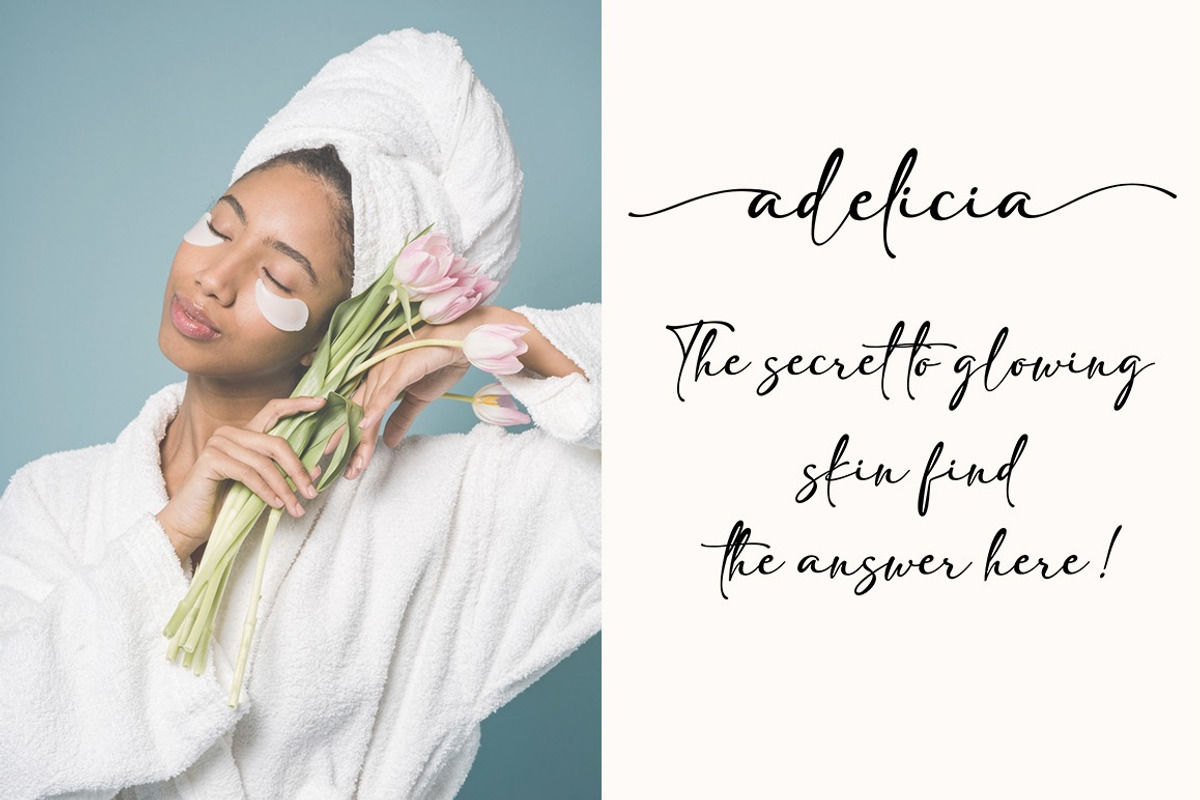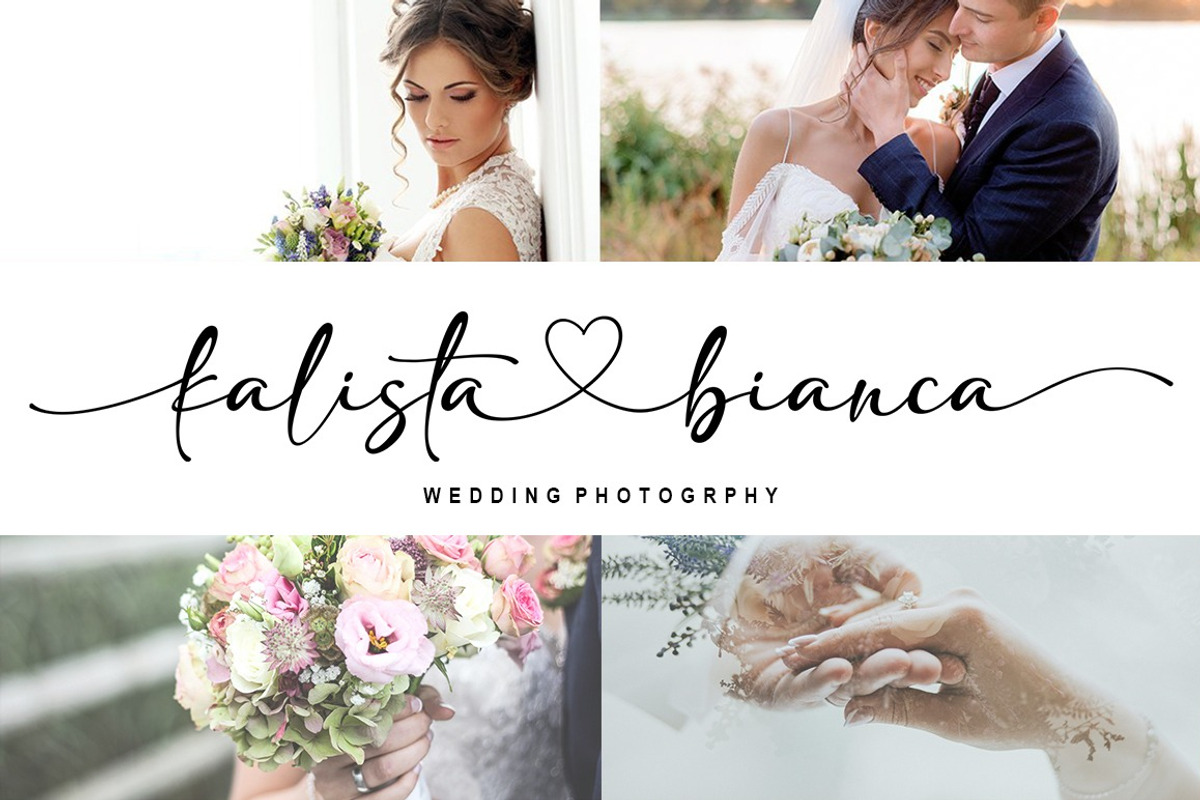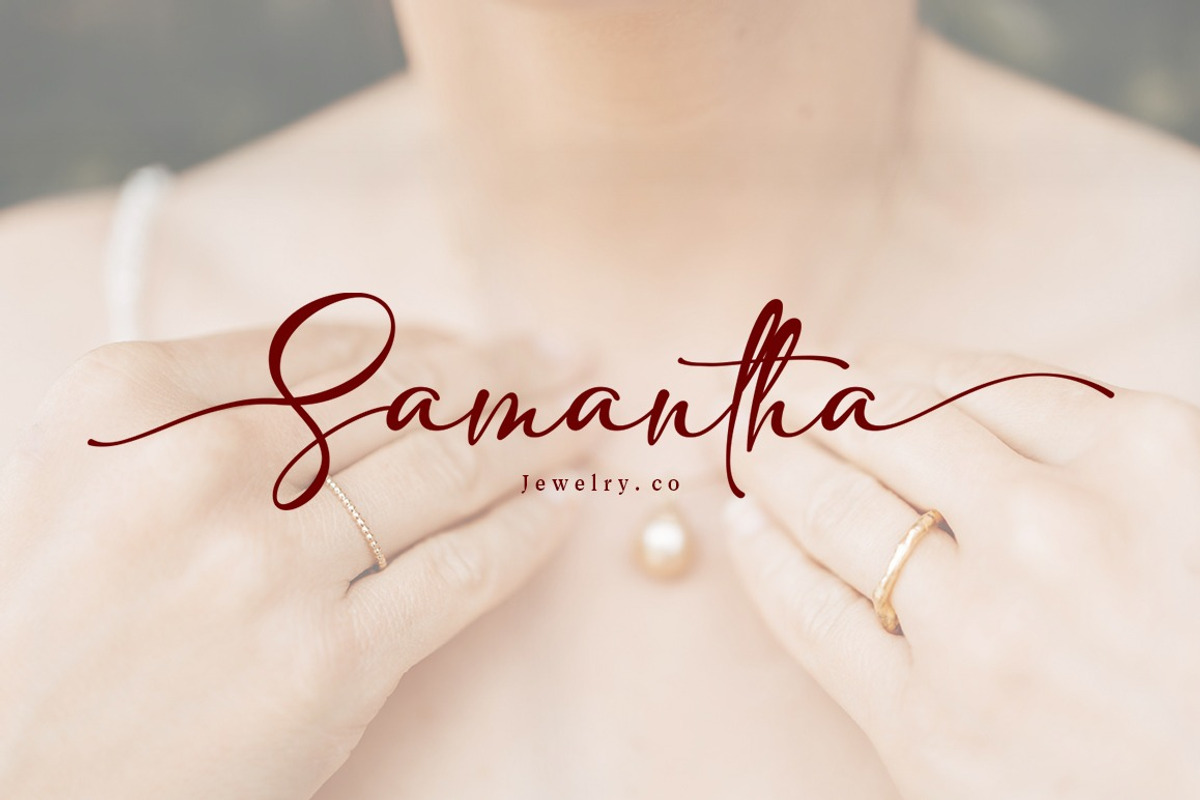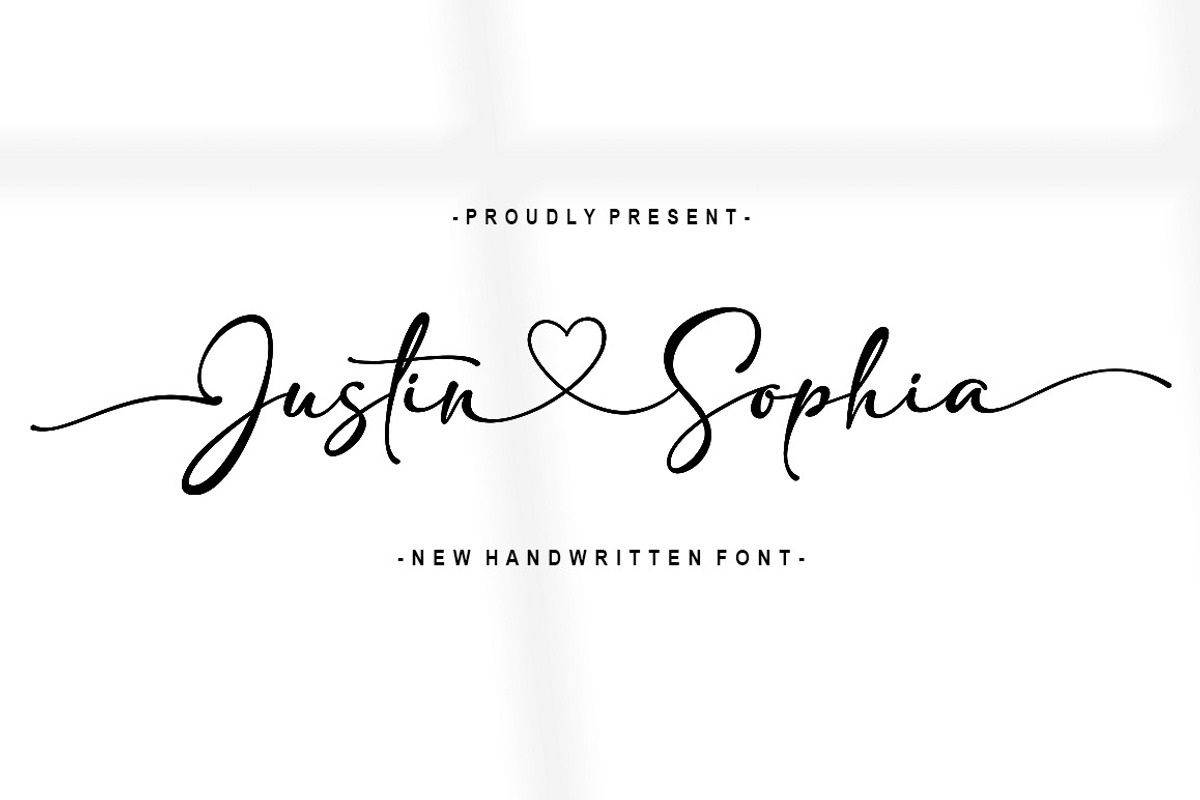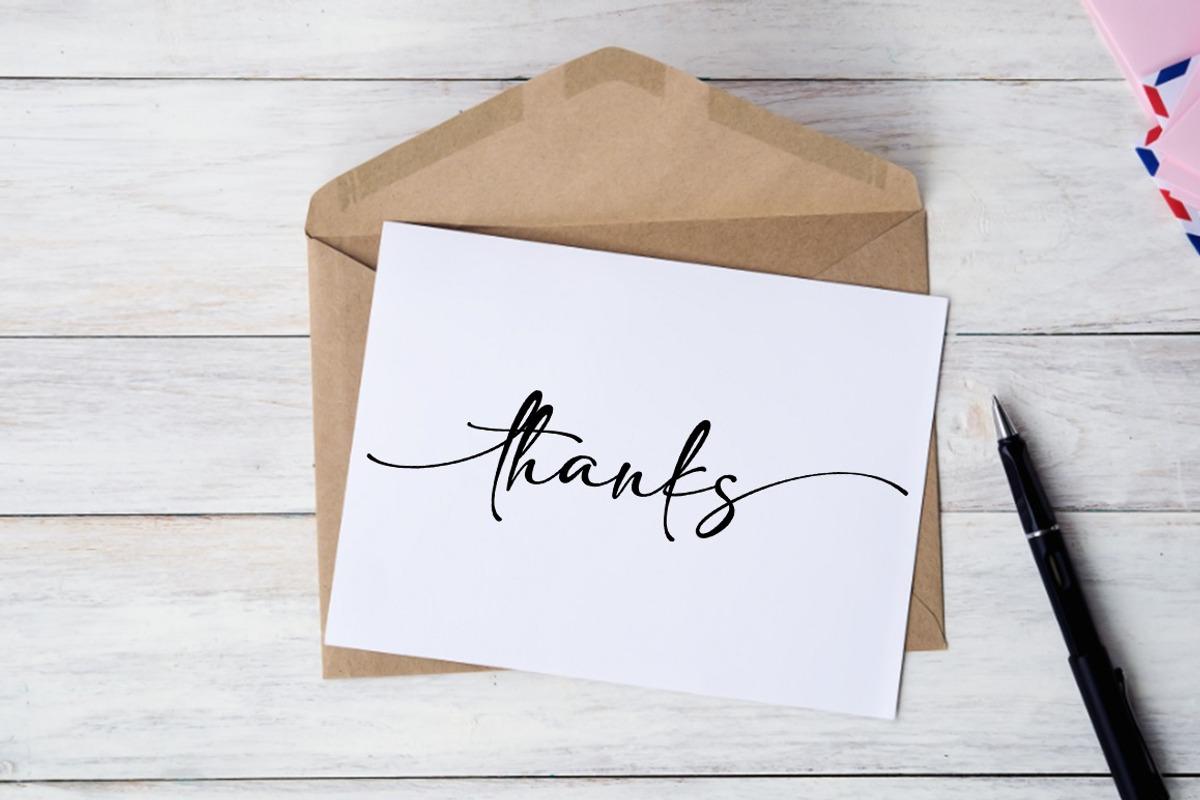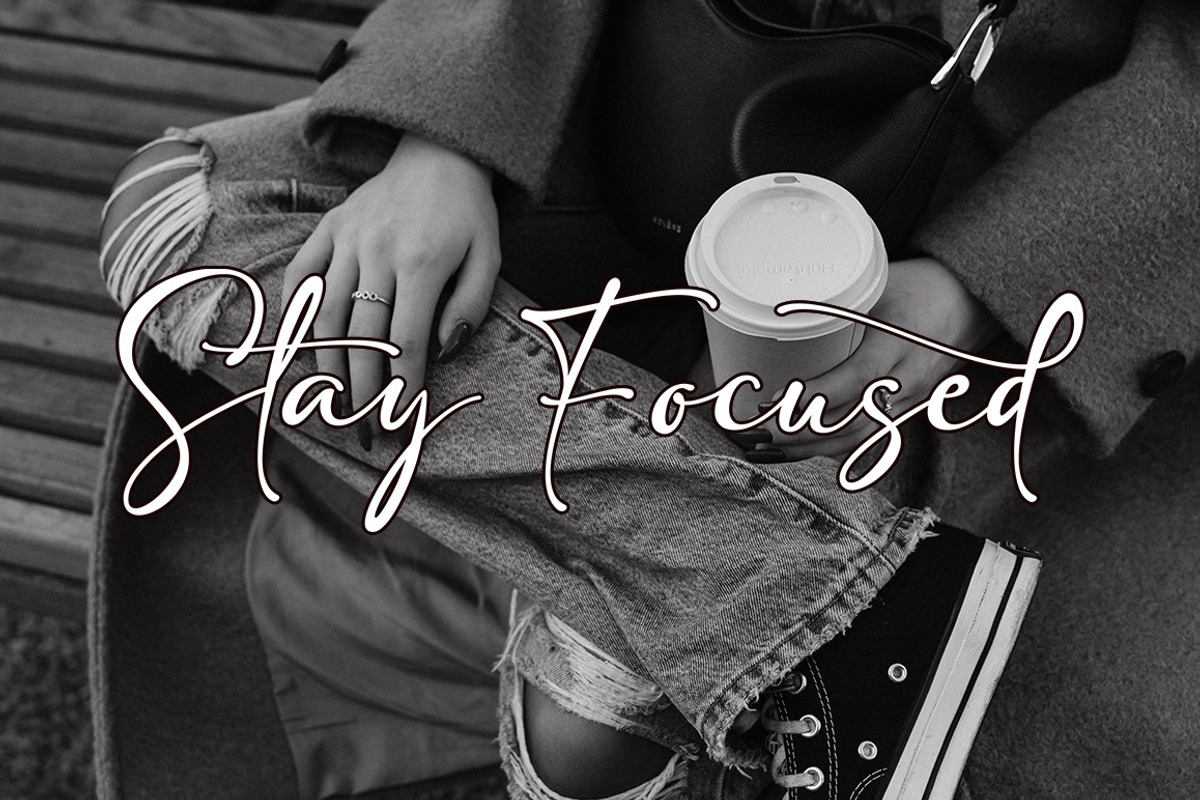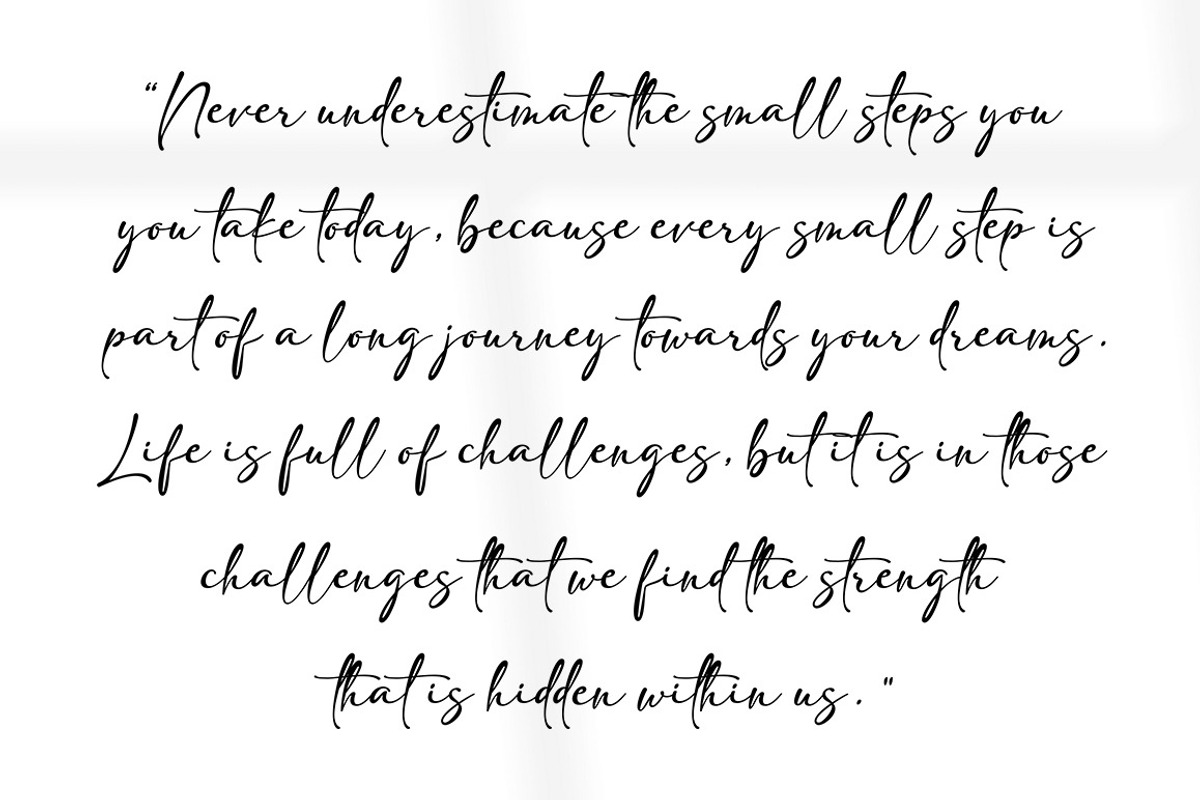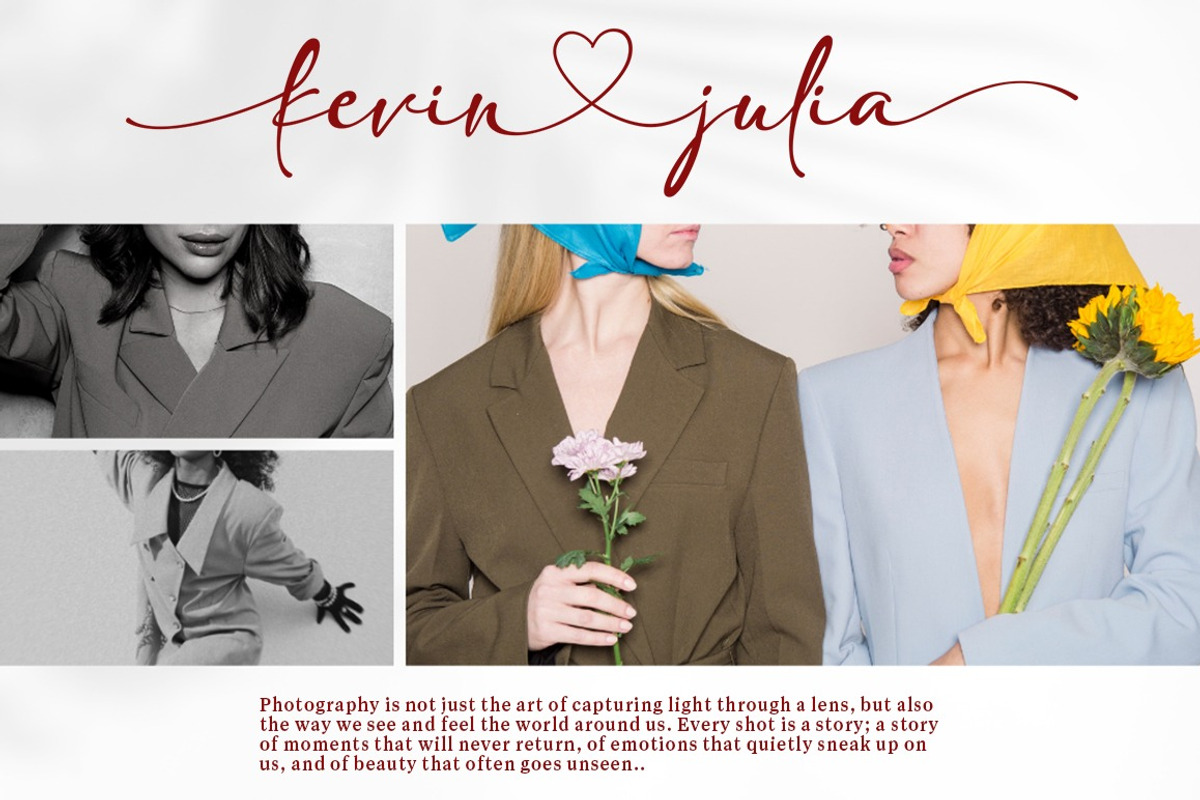
Justin Sophia – Wedding Signature Sc
Justin Sophia is a romantic and elegant signature script font that captures the beauty of natural handwriting. Designed with smooth flowing strokes and graceful swashes, this font is perfect for adding a personal and luxurious touch to your designs.
With its stylish and modern calligraphy feel, Justin Sophia is ideal for wedding invitations, branding, logos, and social media content.
This font includes 679 glyphs, featuring stylistic alternates, ligatures, and beautiful swashes, giving you full creative control to craft unique and expressive typography.
Create timeless and elegant designs effortlessly with Justin Sophia.